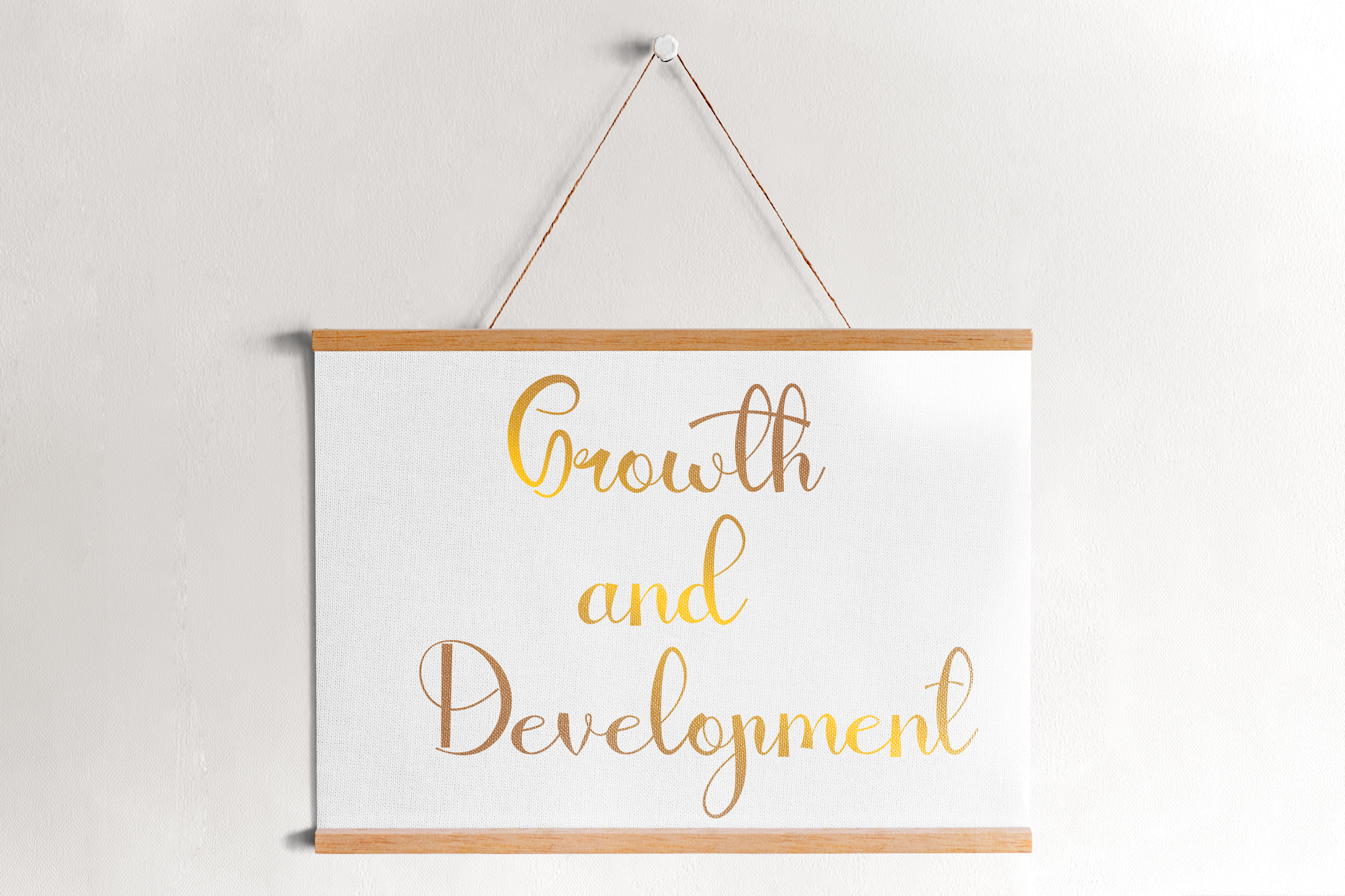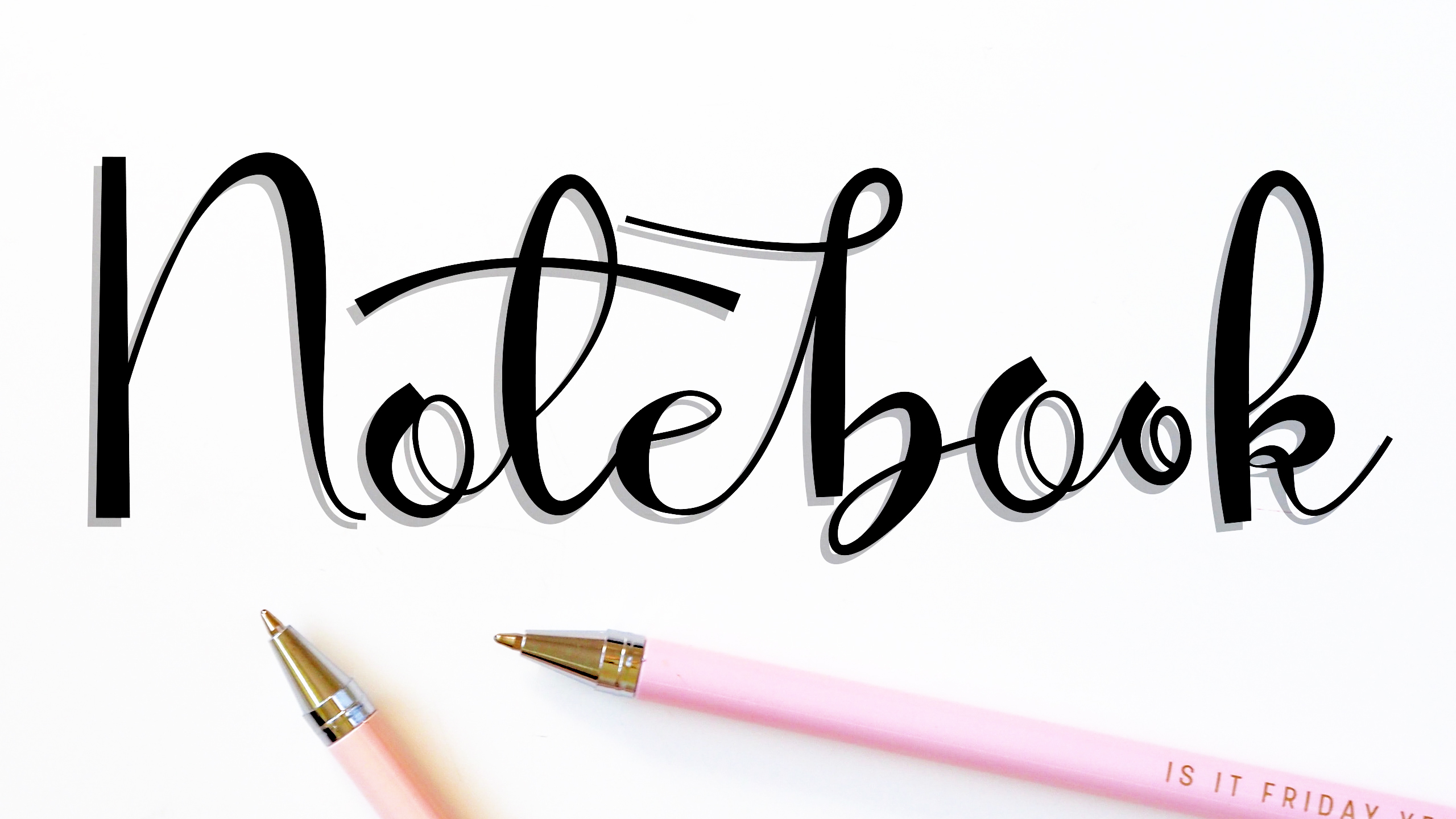
Plants Water Font
Plants Water Script Font
Plants Water Font is a beautiful and refined script font. It is PUA encoded which means you can access all of the amazing glyphs and ligatures with ease